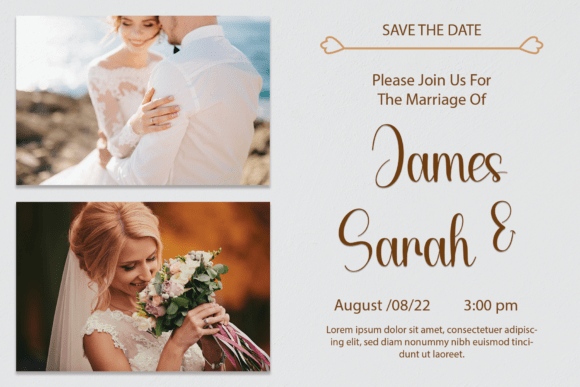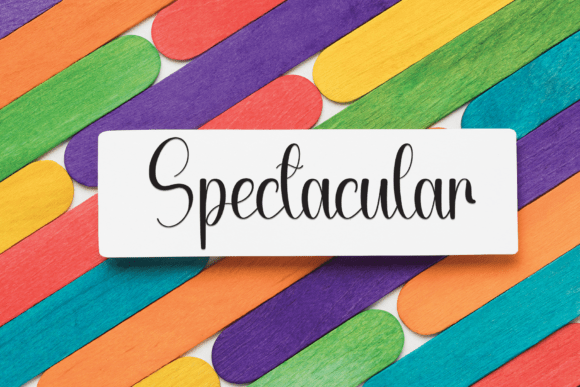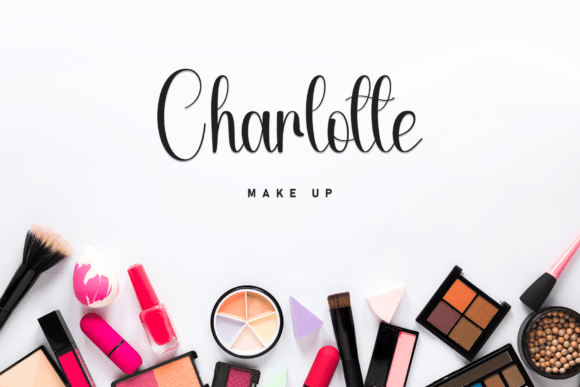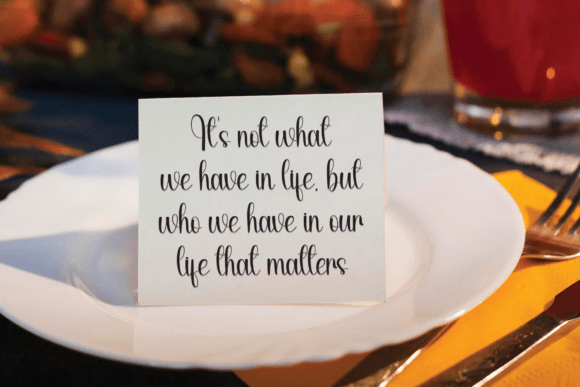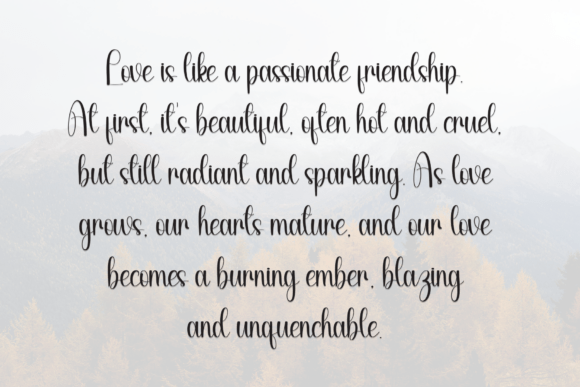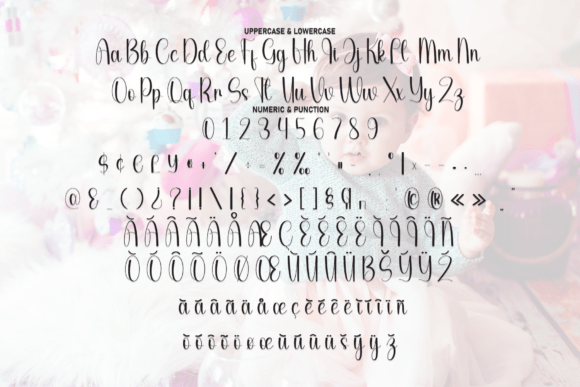
Introduction to Baby Enchanting Font
Do you remember that magical moment when you stumbled upon the perfect font for your design project? The one that made all the pieces fall into place and elevated your work to the next level? For designers, finding the right font can be a game-changer, and that’s exactly what the Baby Enchanting Font offers.
As a free download, this stylish script font is a treasure trove of creative possibilities. With its fluid brush strokes and dynamic curves, it adds a touch of sophistication and elegance to any design. Whether you’re working on a logo, invitation, or social media graphic, the Baby Enchanting Font is sure to deliver both visual impact and versatility.
Perfect for designers looking for a high-quality design resource, this font is ideal for those who crave a unique and creative touch. With its transparent background and expressive letterforms, it’s the perfect addition to any design project, making it a valuable asset for any creative professional.
Key Features of Baby Enchanting Font
- The Baby Enchanting Font is a free download, perfect for designers and artists working on creative projects.
- Each character in the Baby Enchanting Font is meticulously crafted with attention to detail, ensuring a professional finish.
- This unique font is ideal for designing baby-related products, such as nursery decorations, baby clothing, and more.
Honest Review: Baby Enchanting Font
I recently stumbled upon the Baby Enchanting Font, a free download that caught my attention. As a designer, I’m always on the lookout for high-quality design resources to elevate my creative projects. In this review, I’ll share my thoughts on what works well and any limitations I encountered.
- Delicate and whimsical design: The Baby Enchanting Font is perfect for adding a touch of magic to children’s book illustrations, nursery decor, or any project that requires a playful feel.
- High-quality glyphs: The font is well-designed and easy to read, even at small sizes.
- Limited character set: The font only includes uppercase and lowercase letters, with no additional characters or symbols.
Overall, I’m impressed with the Baby Enchanting Font’s design and ease of use. While it has some limitations, it’s a great resource for designers working on creative projects that require a whimsical touch.
How to Use Baby Enchanting Font
The Baby Enchanting Font is a free design resource ideal for creative projects that require a touch of whimsy and charm. With its high-quality, intricate design, this font is perfect for adding a magical touch to your designs.
Tips for Getting the Most Out of the Baby Enchanting Font
For the best results, use the Baby Enchanting Font on a transparent background to allow the intricate design to shine. Experiment with different font sizes and colors to achieve the desired effect.
The Baby Enchanting Font is perfect for:
- Designing baby shower invitations and decorations
- Creating whimsical children’s book illustrations
- Adding a touch of magic to wedding invitations and decorations